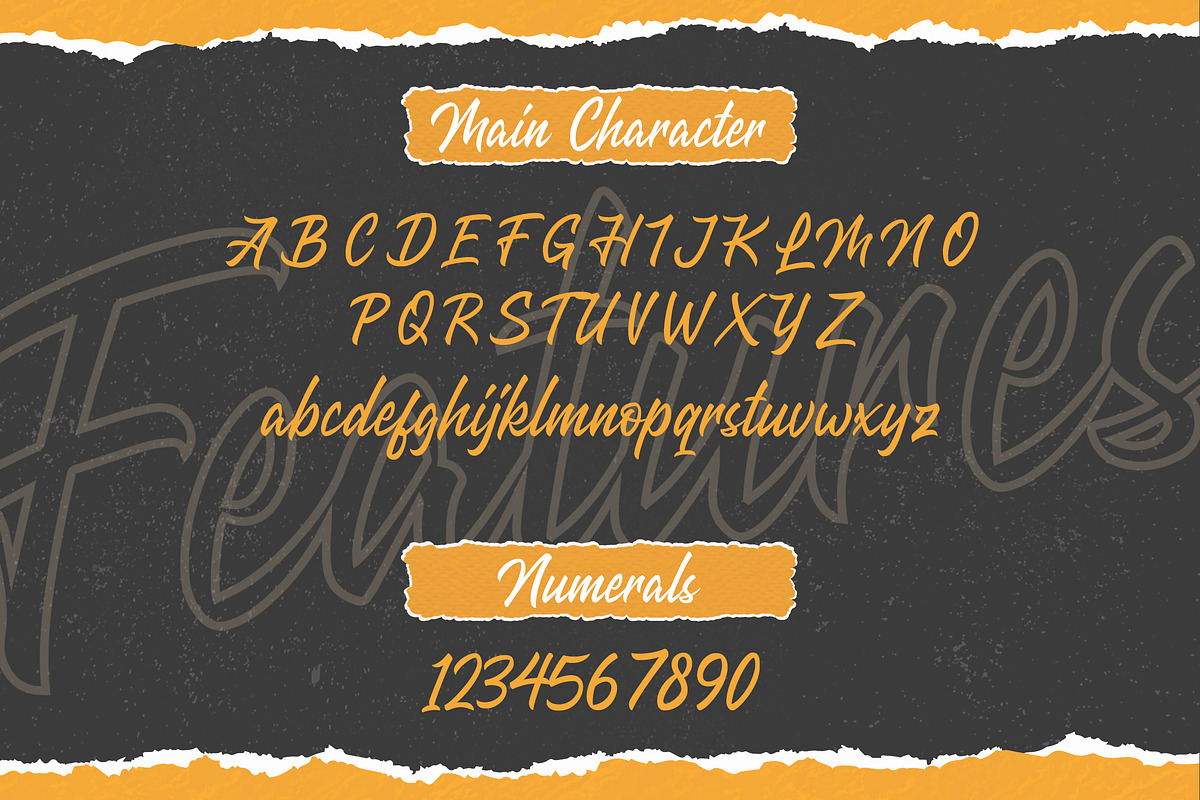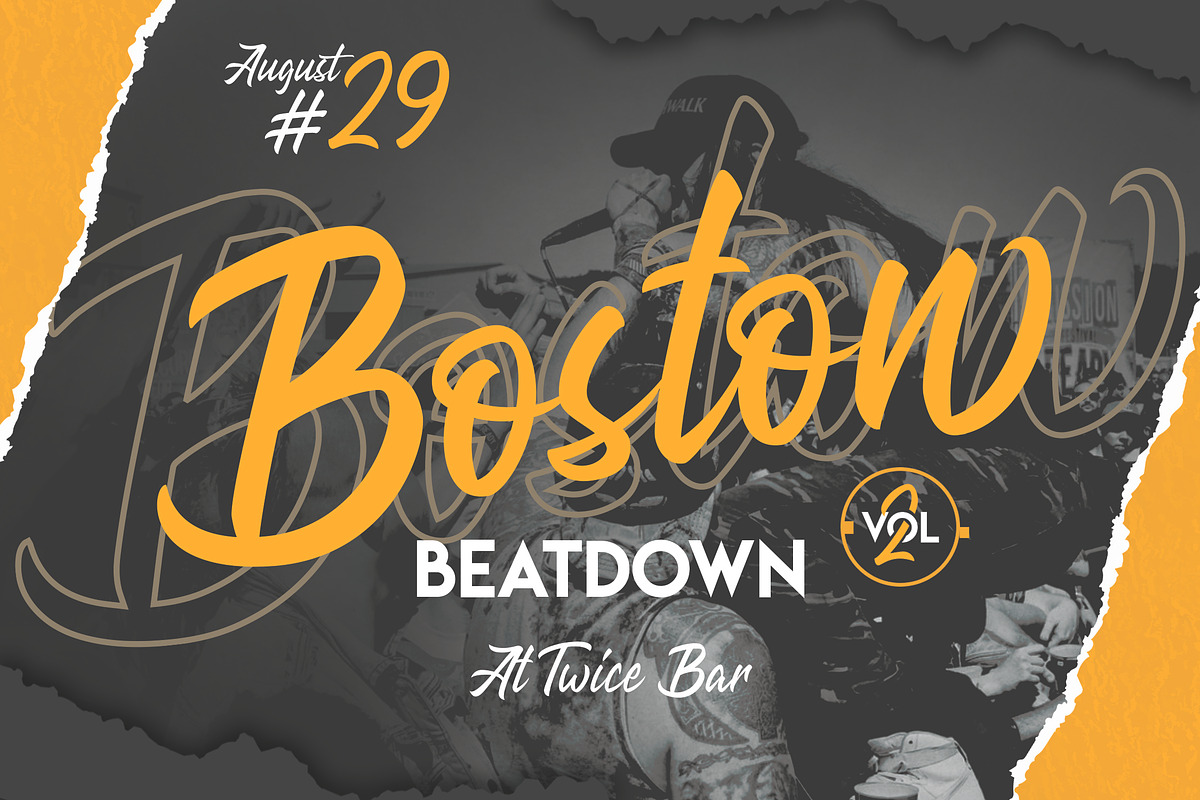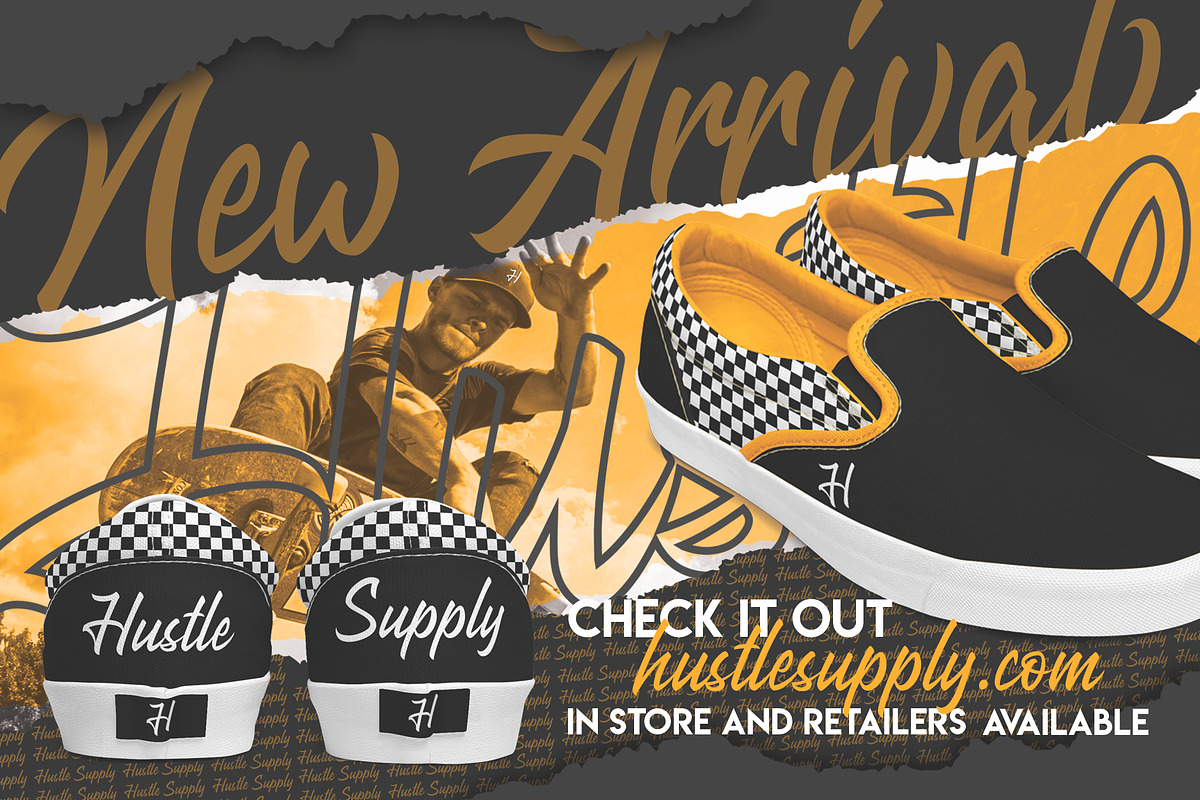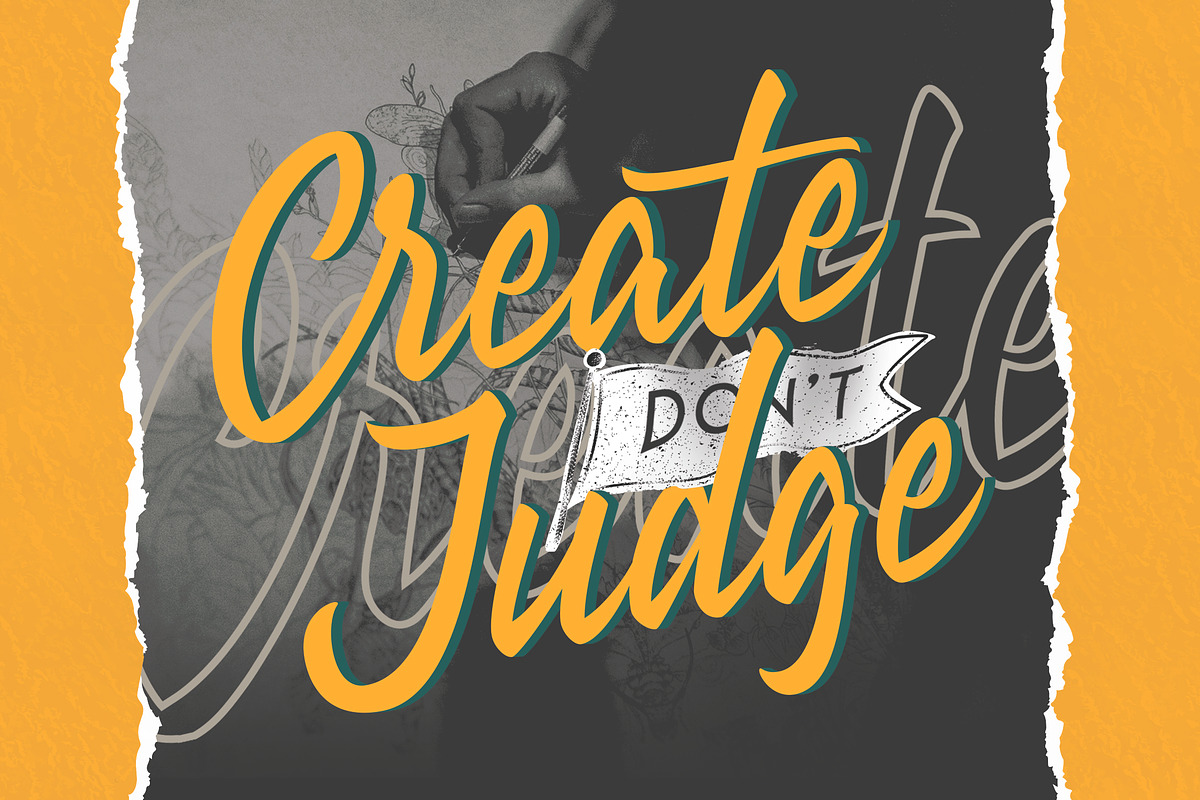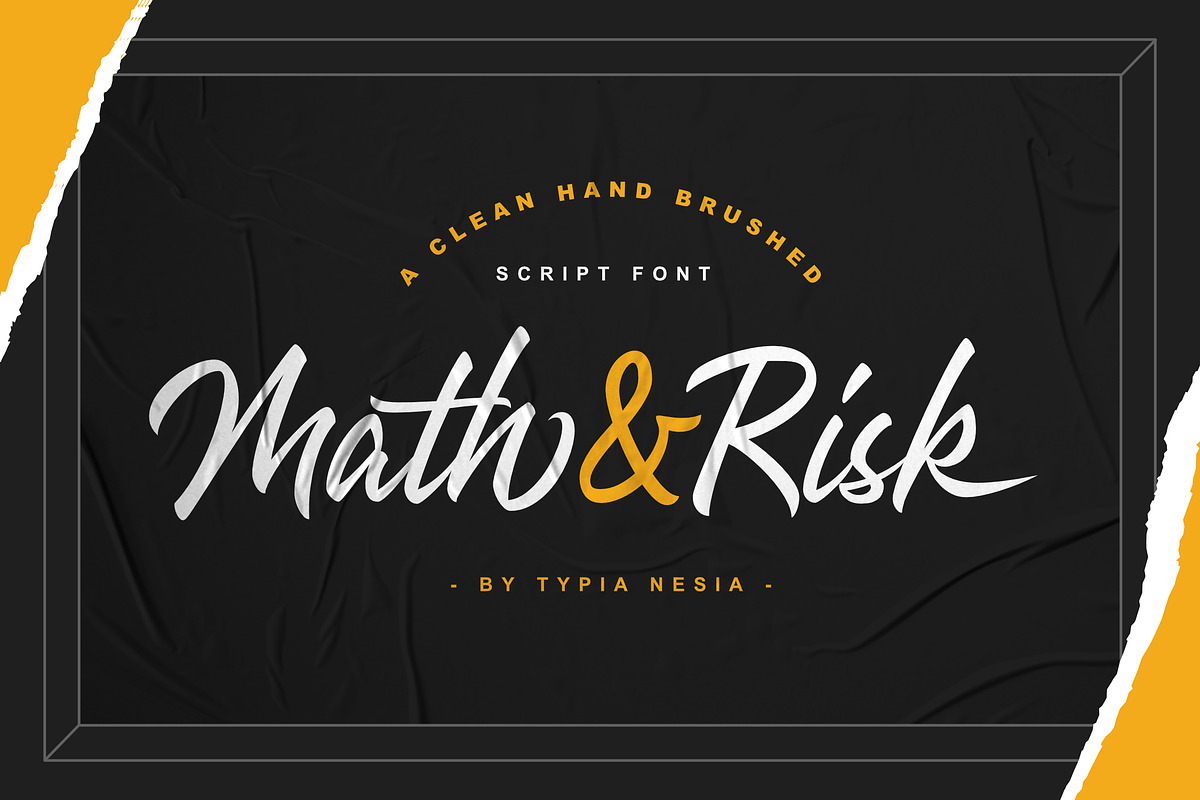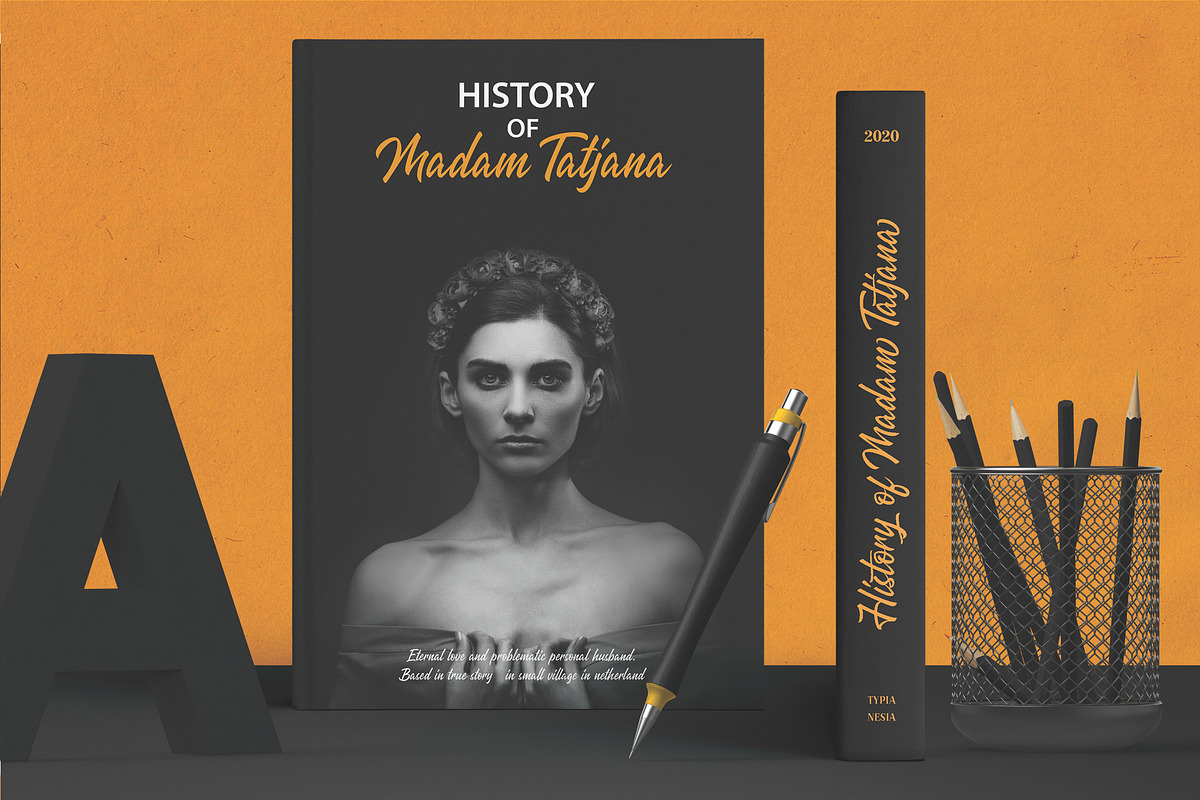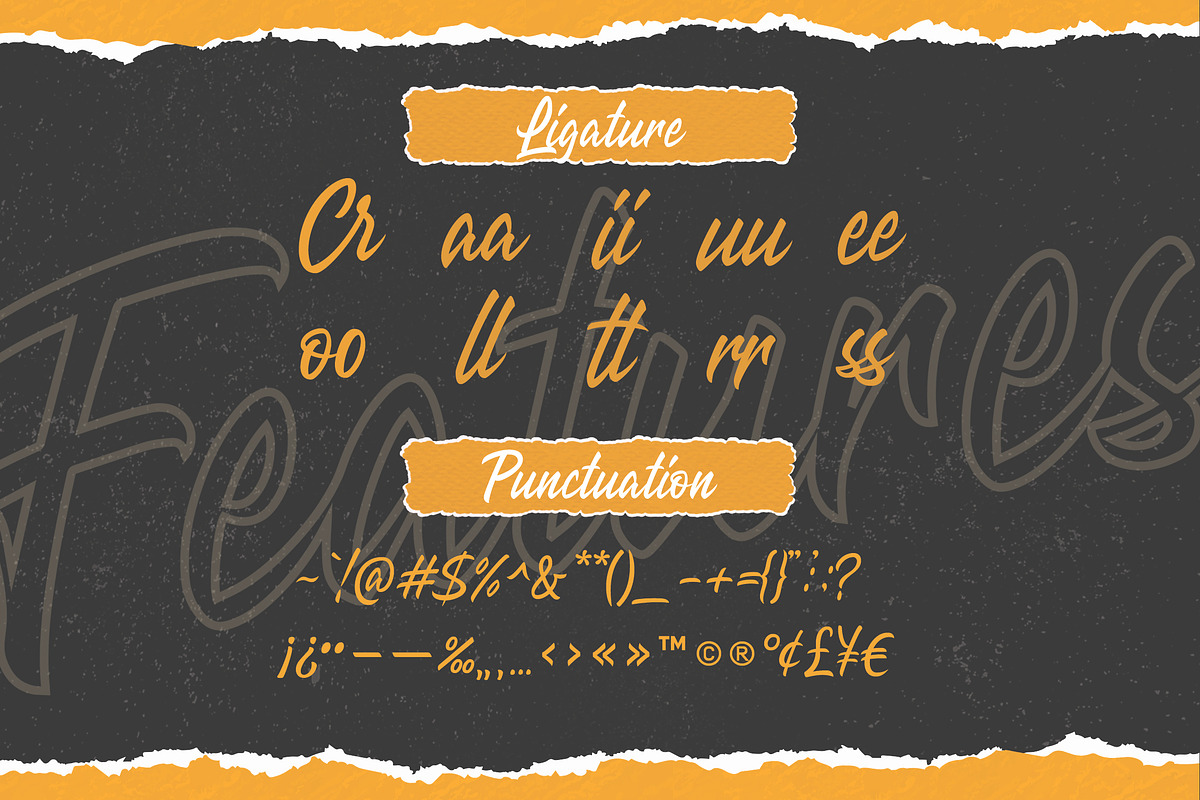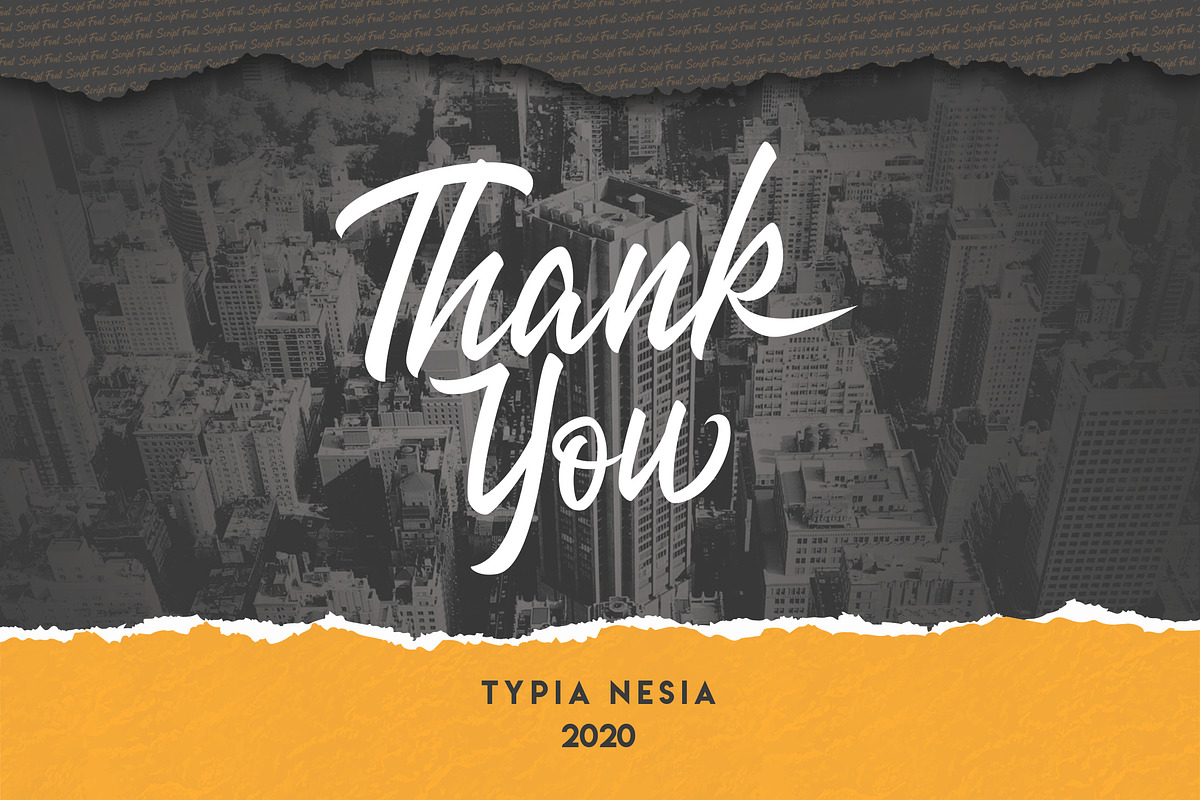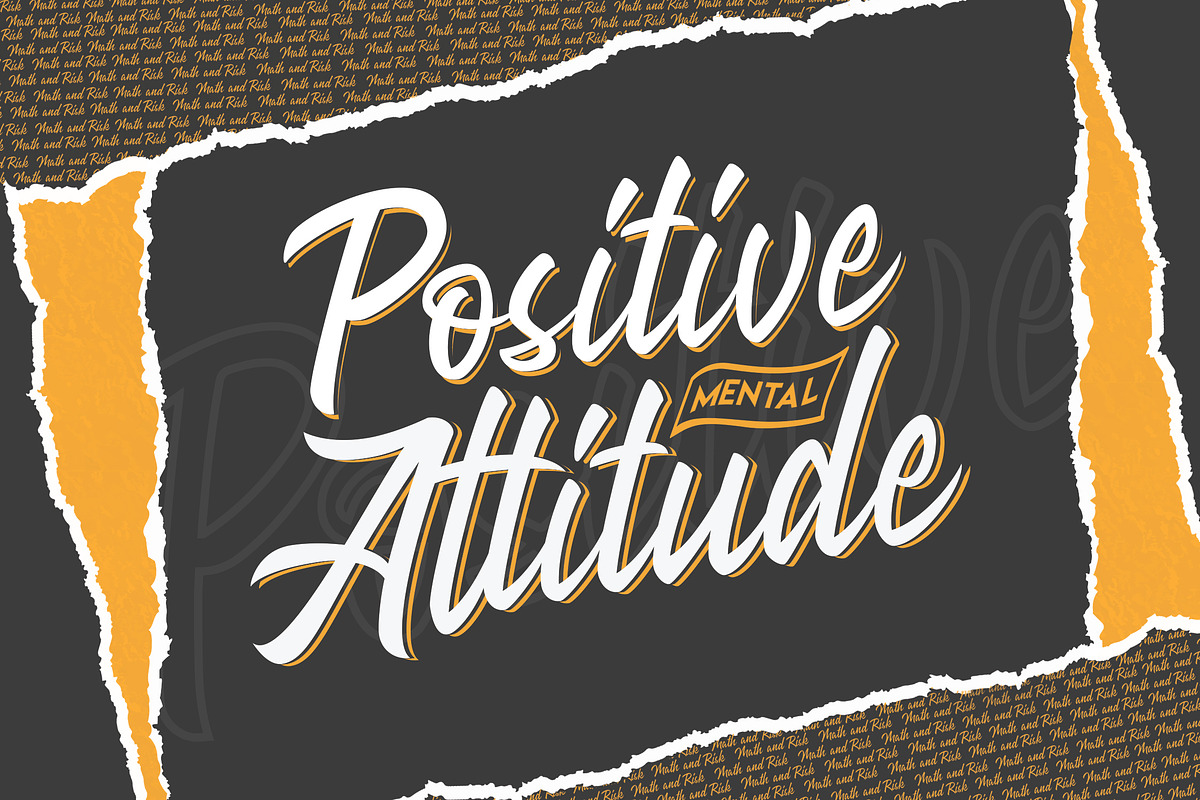
Math & Risk
Math & Risk Script Display font is an excellent font for modern hand lettering logo or headline / display / poster designs.
Suitable for any design needs : logo, branding, modern advertising design, logos, poster quote, book / cover Title, editorial design, website / blog, card, custom mug, pillow, t-shirts, and any hand-lettered needs.
- Math & Risk (.ttf + .otf) comes with upper and lowercase Standard Characters, Punctuation, Numerals. And other Glyphs variation of the OpenType features such as Standard Ligature, Stylistic Alternate, and Stylistic Set.
- Includes a range of multilingual characters.